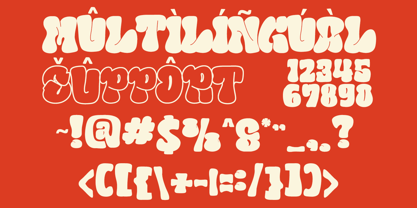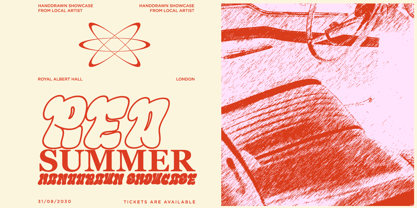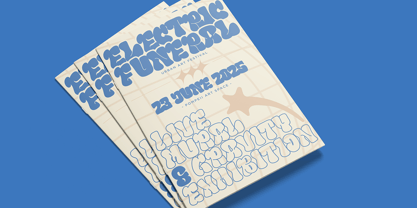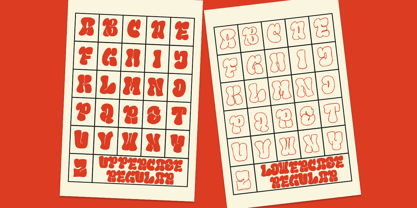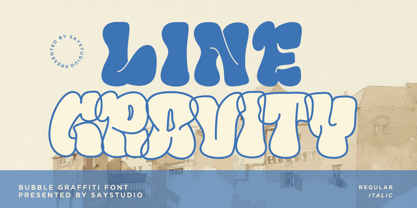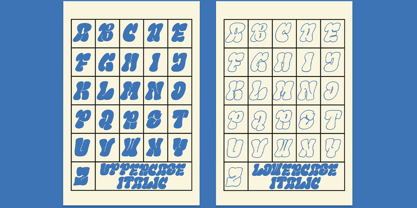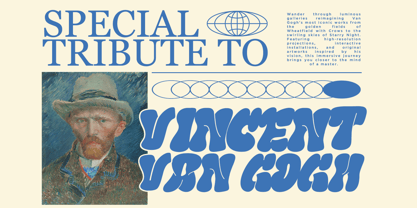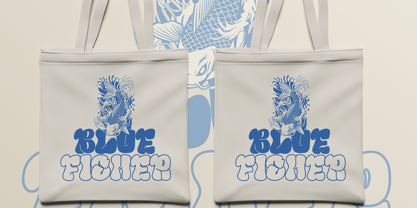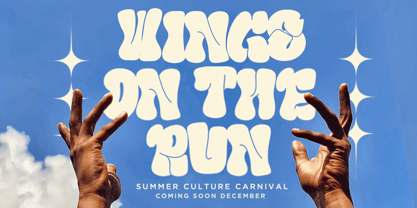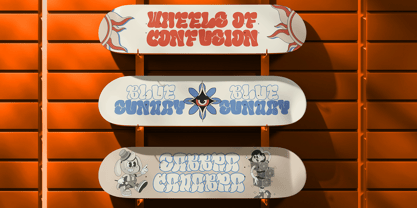
Line Gravity
by Say Studio
The Line Gravity Font Family was designed by Mussyayin and published by Say Studio. Line Gravity contains 2 styles and family package options. More about this family
Line Gravity - Bubble Graffiti Font
A bubble, playful, and sweet font with a graffiti vibe and soft rounded shapes in detail. Line Gravity brings a fun and casual energy, perfect for big-size applications like posters, flyers, or street-inspired designs. It pairs well with sans fonts, making it versatile for modern layouts. Its hand-drawn imperfections keep it lively while still providing clear legibility. A perfect blend of retro charm and urban style.
- Uppercase, Lowercase (All Caps)
- Comes with 2 styles; Regular and Italic
- Multilingual Support
- Number & Punctuation